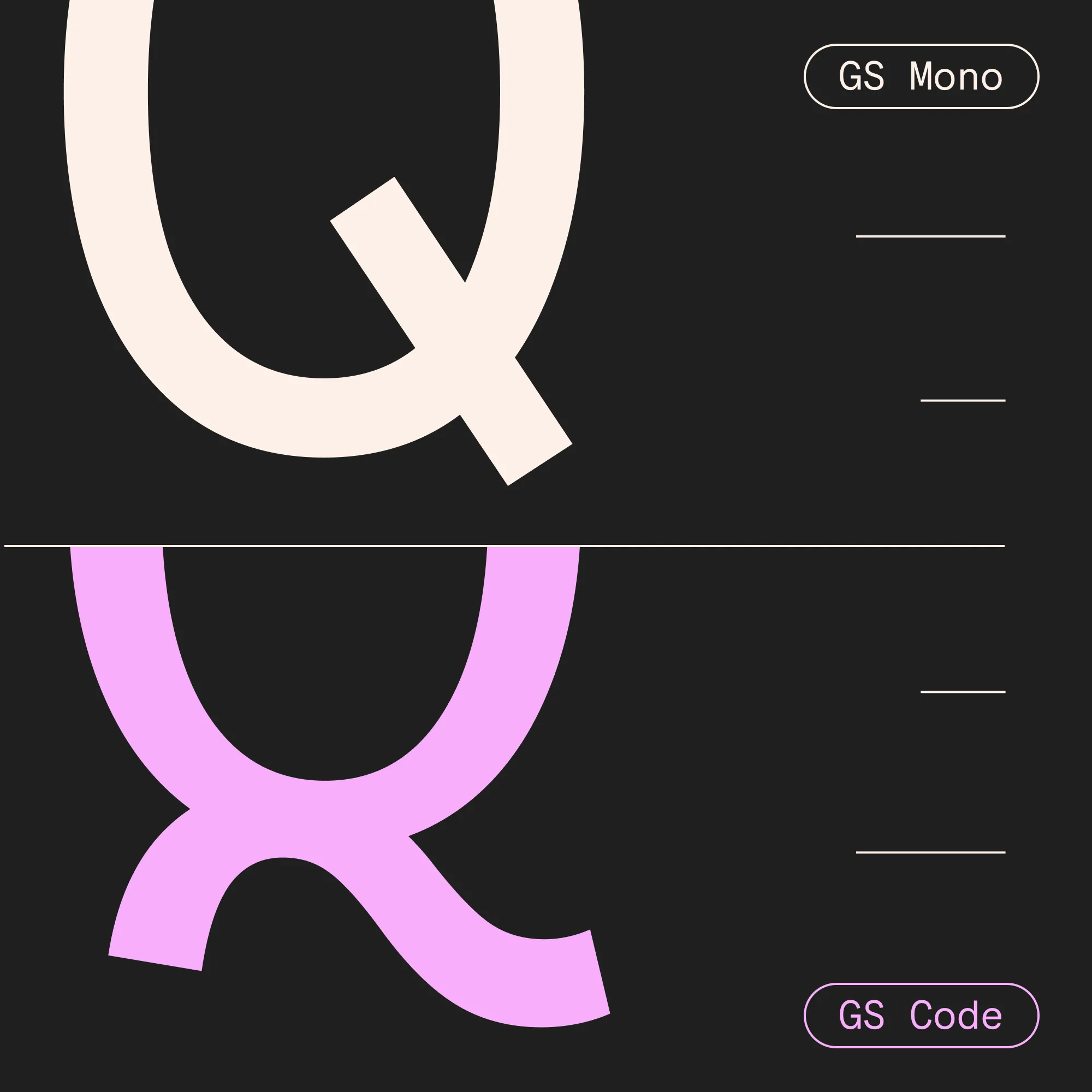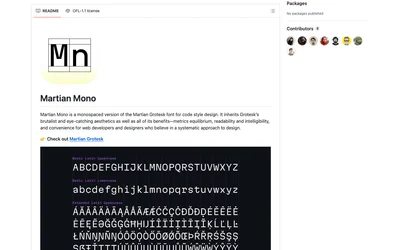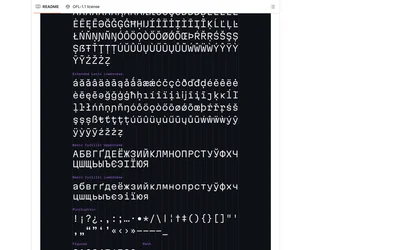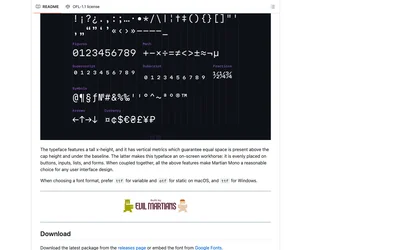
Google Sans Code vs Martian Mono
Google Sans Code and Martian Mono are both mono typefaces sharing a monospace foundation. Where Google Sans Code leans tech, Martian Mono brings wide. Compare which suits your Terminal project.
Design overlap:60%
| Feature | Google Sans Code | Martian Mono |
| Classification | mono | mono |
| Variable Font | Yes | Yes |
| Weights | Variable | Variable |
| Language Support | latin, latin-extended | latin, latin-extended, cyrillic |
Recommended: Google Sans Code
- tech design character
- Suited for Coding and Ui
- From google
Consider: Martian Mono
- wide design character
- Suited for Code and Programming
- From evil-martians